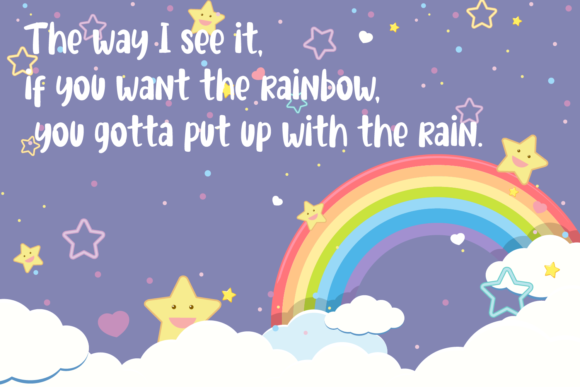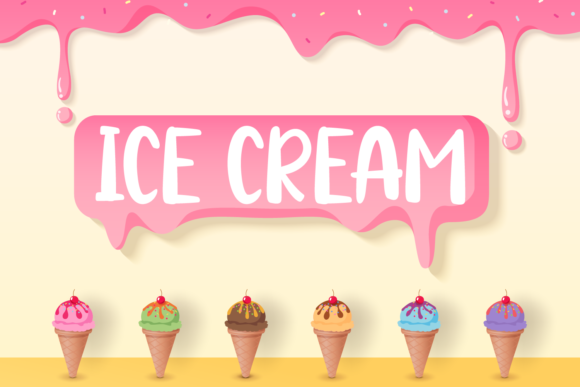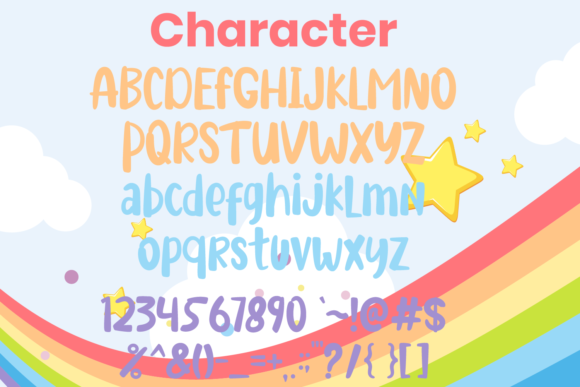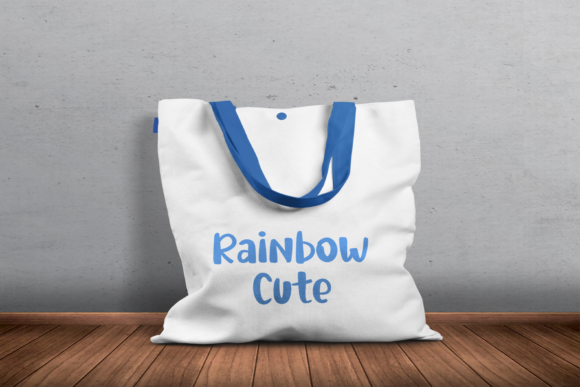
Introduction to Rainbow You Font
Have you ever found yourself browsing through a design inspiration board, only to stumble upon a project that captures your heart and sparks your creativity? For me, it’s the little details that make a design truly special. The Rainbow You Font is one of those little details that can elevate a project from good to great.
This charming display font is a treasure trove for designers looking to add a pop of color and whimsy to their creative projects. With its high-quality design and transparent background, the Rainbow You Font is perfect for adding a personal touch to children’s designs, from birthday party invitations to educational materials.
Key Features of Rainbow You Font
- Unique and colorful design, perfect for creative projects that require a playful and vibrant touch
- High-quality font with transparent background, ideal for use in digital design, graphic design, and web design
- Perfect for use in logos, branding materials, social media graphics, and other design elements where a bold and colorful font is needed
Honest Review: Rainbow You Font
I recently came across the Rainbow You Font, and I’m excited to share my thoughts on this design resource. As a designer, I’m always on the lookout for unique and high-quality fonts to add some flair to my creative projects.
- Colorful and playful: The Rainbow You Font is perfect for adding a pop of color to your design projects. With a wide range of vibrant colors, you can create visually appealing and engaging designs.
- Transparent background: The font’s transparent background makes it easy to layer and blend with other design elements, giving you more flexibility in your design process.
- Limited versatility: While the font is perfect for playful designs, it may not be suitable for more formal or professional projects.
- Not ideal for small text: Due to its bold and colorful nature, the font may not be the best choice for small text or body copy.
Overall, I think the Rainbow You Font is a great addition to any designer’s toolkit. With its colorful and playful vibe, it’s perfect for creative projects that require a bit of whimsy. Just keep in mind its limitations, and you’ll be well on your way to creating amazing designs with this font.
For the best results, use the Rainbow You Font on a transparent background to really make it pop. You can also experiment with different font sizes and styles to add visual interest to your design.
The Rainbow You Font is perfect for creative projects such as social media graphics, blog posts, and presentations. Its high quality and versatility make it a great addition to any design resource collection.